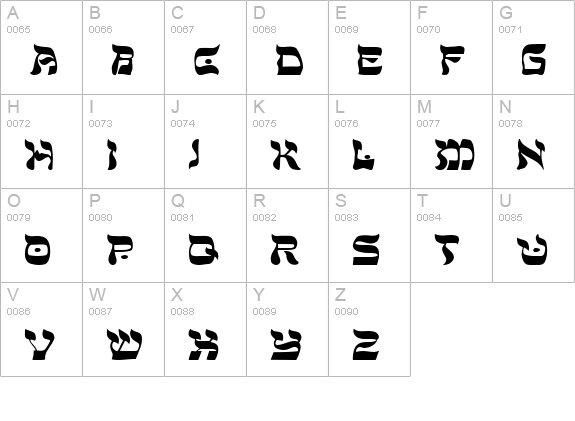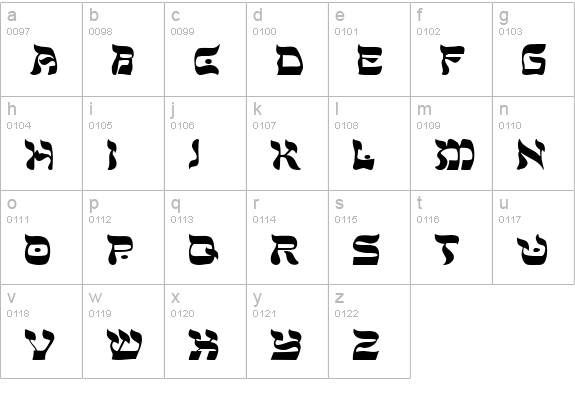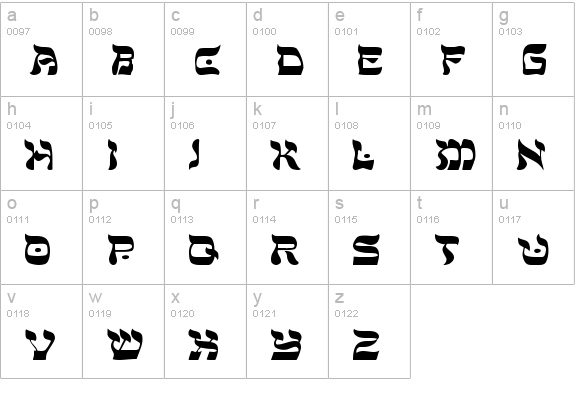
Peace Regular is the standard, neutral variant in the Peace typeface family \xE2\x80\x94 well suited to general body text, paragraphs, and standard typographic work.
Peace Regular is a beautifully crafted font that exudes a sense of tranquility and harmony. With its clean and elegant design, this font is perfect for creating designs that evoke a feeling of calmness and serenity. Whether you're designing a logo, a website, or a printed material, Peace Regular will add a touch of peacefulness to your project. What makes Peace Regular even more appealing is that it is freely available to download at FontsMarket.com. This means that you can easily access and use this font without any hassle. Whether you're a professional designer or someone who simply enjoys experimenting with different fonts, you can enjoy the benefits of Peace Regular without any cost. The versatility of Peace Regular allows it to be used in a wide range of design projects. Its clean lines and balanced proportions make it suitable for both headlines and body text, ensuring readability and visual appeal. Whether you're designing a poster, a brochure, or even a wedding invitation, Peace Regular will bring a sense of harmony and tranquility to your design. To enhance its flexibility, Peace Regular supports a wide range of languages, making it suitable for international projects. Its extensive character set ensures that you can easily incorporate accents and special characters into your designs, catering to diverse audiences. In conclusion, Peace Regular is a free font that not only captures the essence of peace and tranquility but also offers accessibility and versatility. Whether you're a professional designer or a hobbyist, Peace Regular is a valuable addition to your font collection. Download it freely at FontsMarket.com and let its calming presence elevate your design projects to new heights.